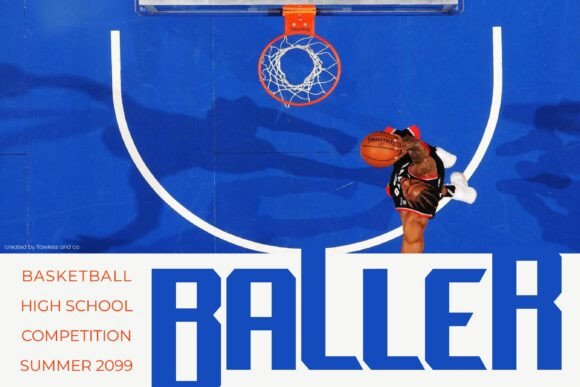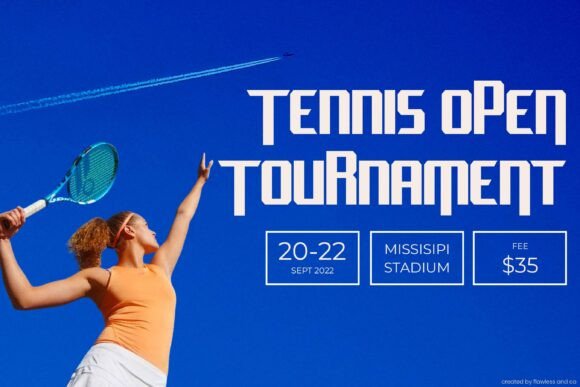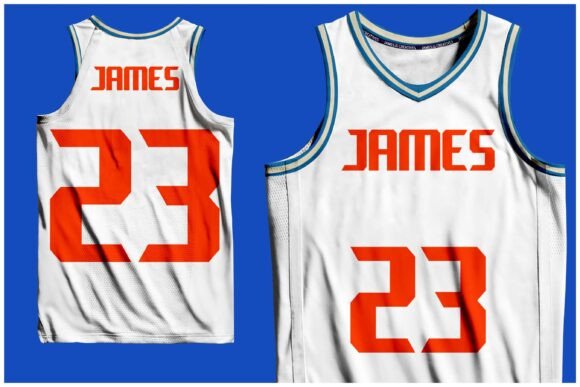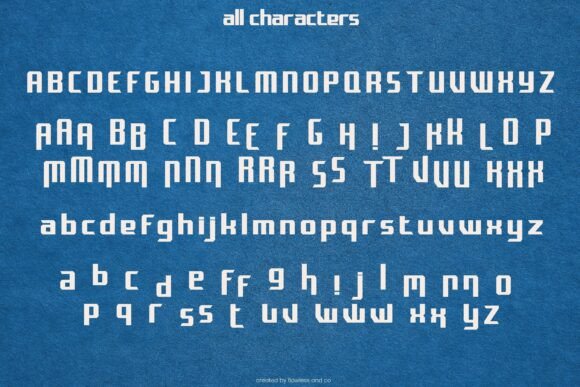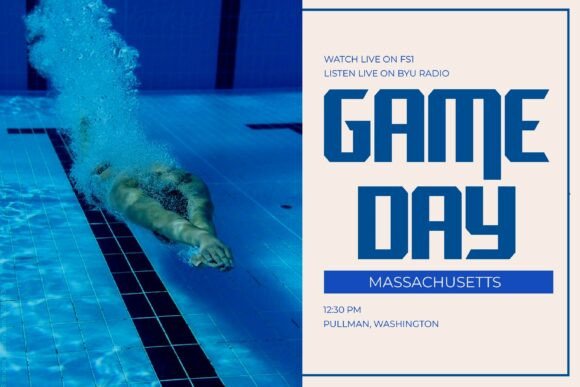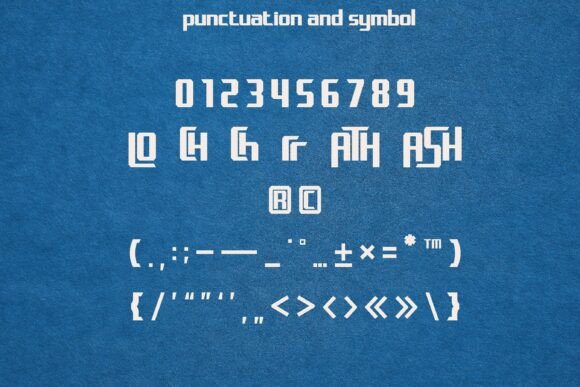
Introduction to Protoser Font
Protoser is a bold and dynamic sans serif sport display typeface designed to capture attention and deliver a strong visual impact.
Its sharp geometric structure and modern styling make it perfect for athletic branding, team logos, sports posters, and energetic headlines PROTOSER exudes power and confidence, making it the ideal choice for projects that need a fearless and competitive edge.